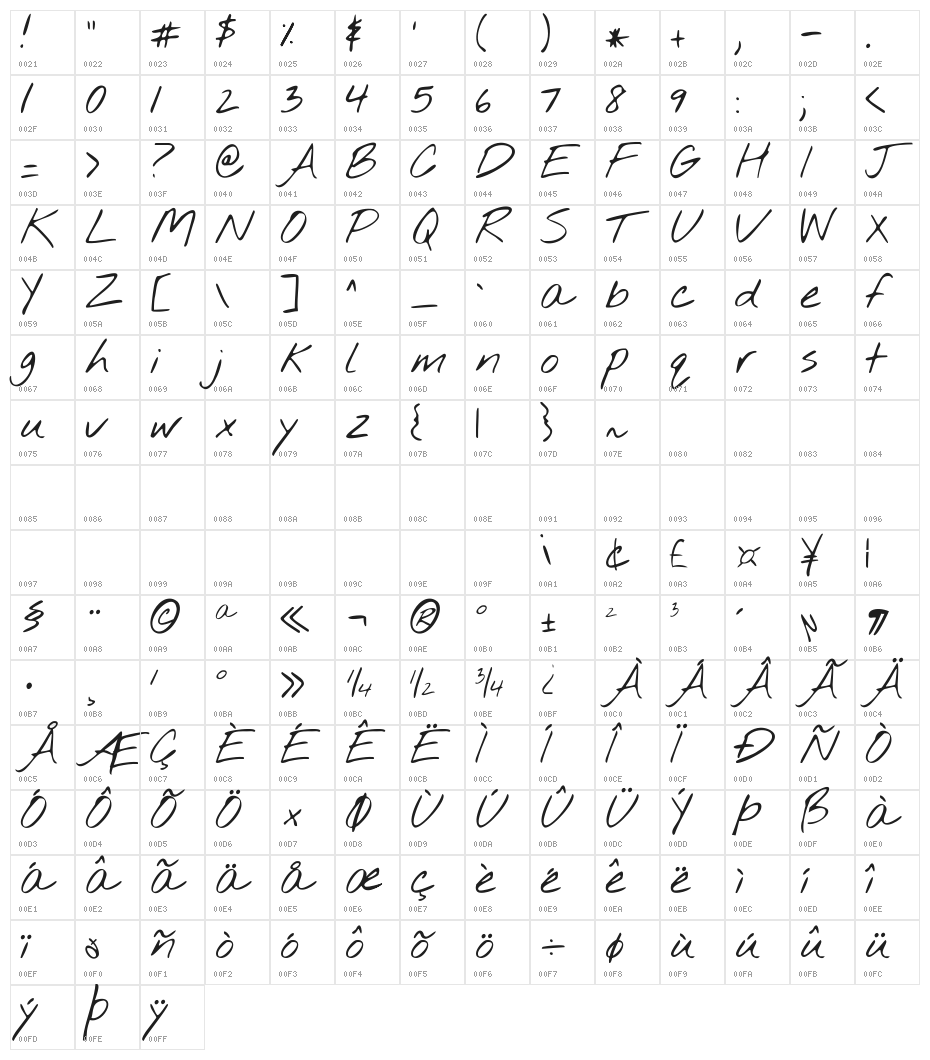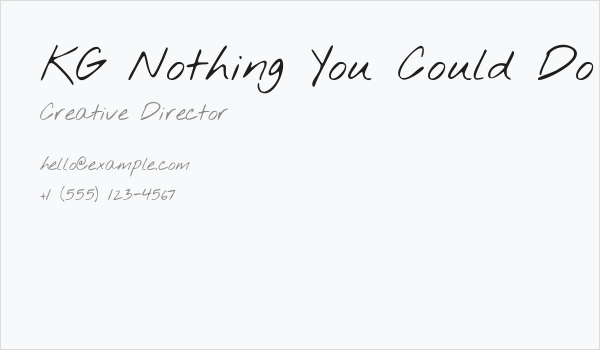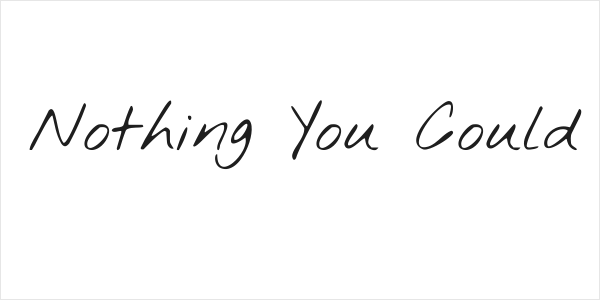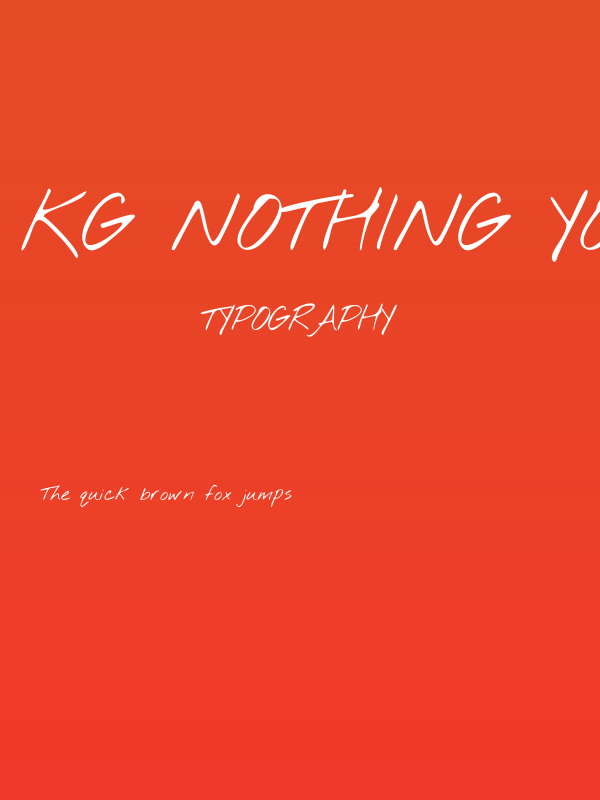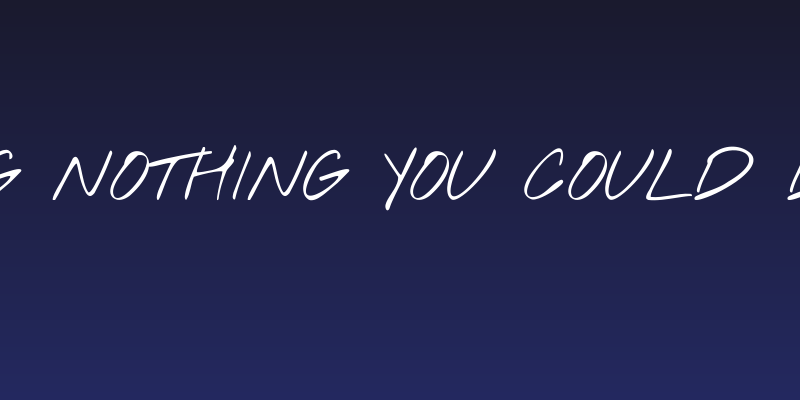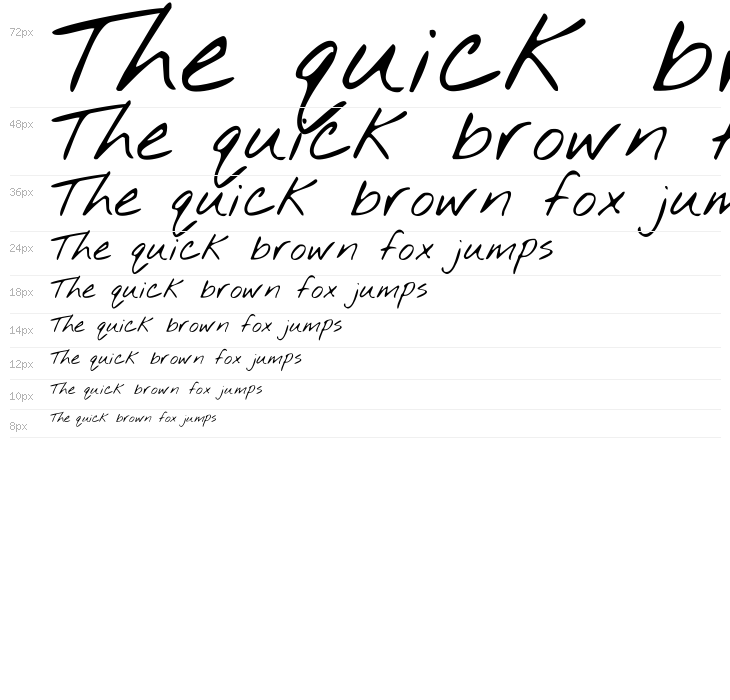
KG Nothing You Could Do Font
KG Nothing You Could Do Description
This font exudes a casual and handwritten style, characterized by its fluid and natural strokes. The letters are slightly slanted, giving it a dynamic and informal appearance. The uppercase and lowercase letters maintain a consistent flow, with smooth curves and a personal touch that mimics natural handwriting. The numbers and special characters are crafted with the same attention to detail, ensuring a cohesive look throughout. This font is perfect for projects that require a personal and approachable feel, such as invitations, greeting cards, or personal branding.
| Proposed Projects | Ideal for invitations, greeting cards, personal branding, and informal communication. |